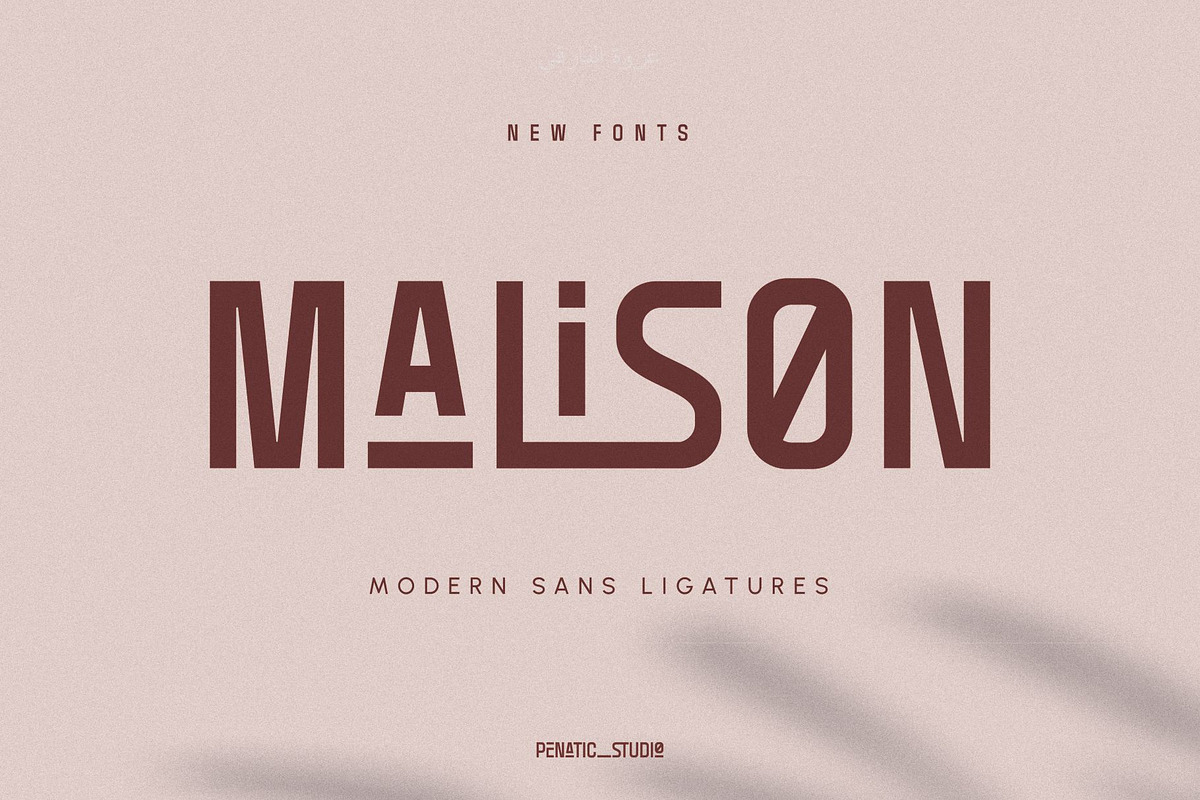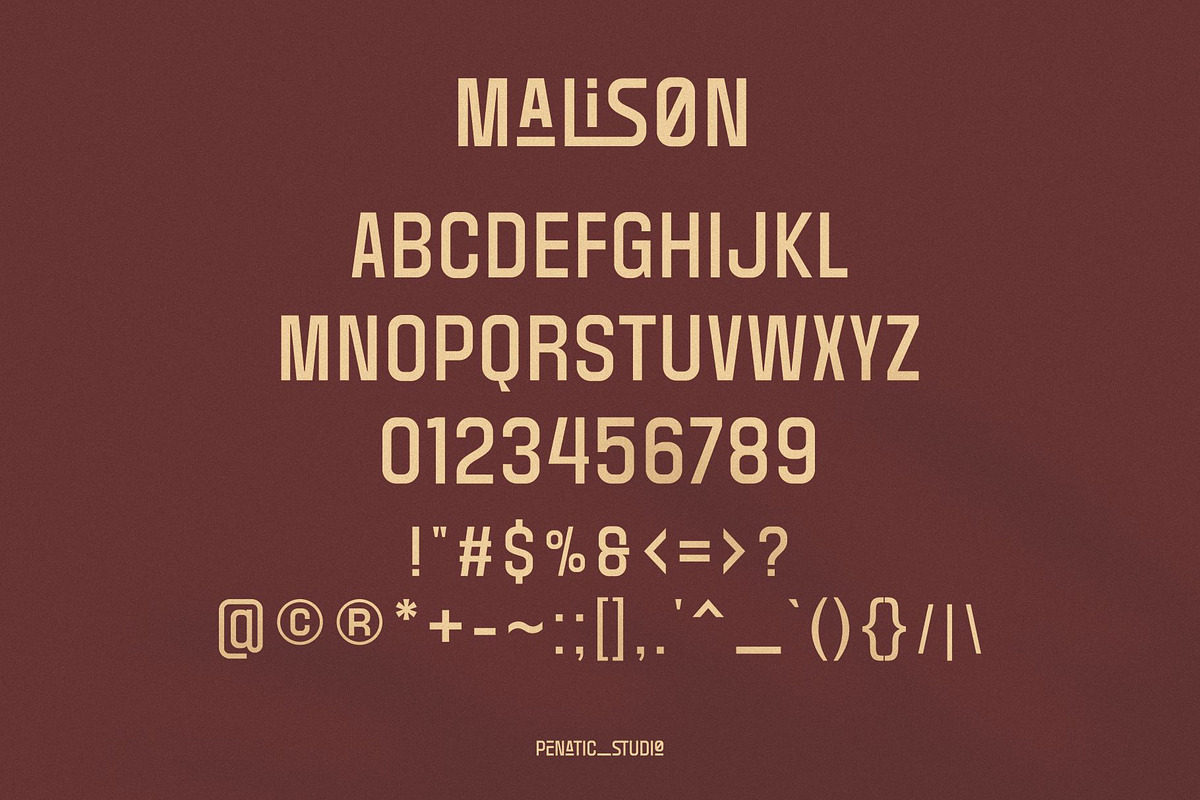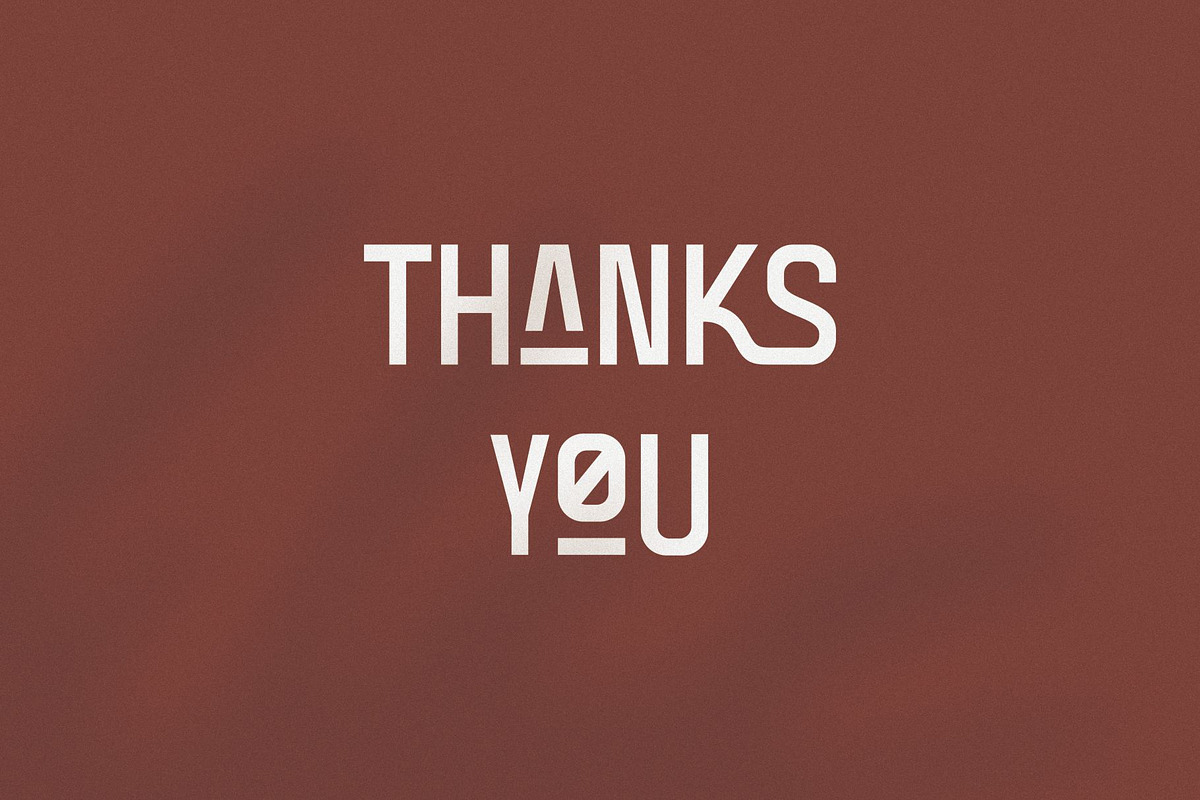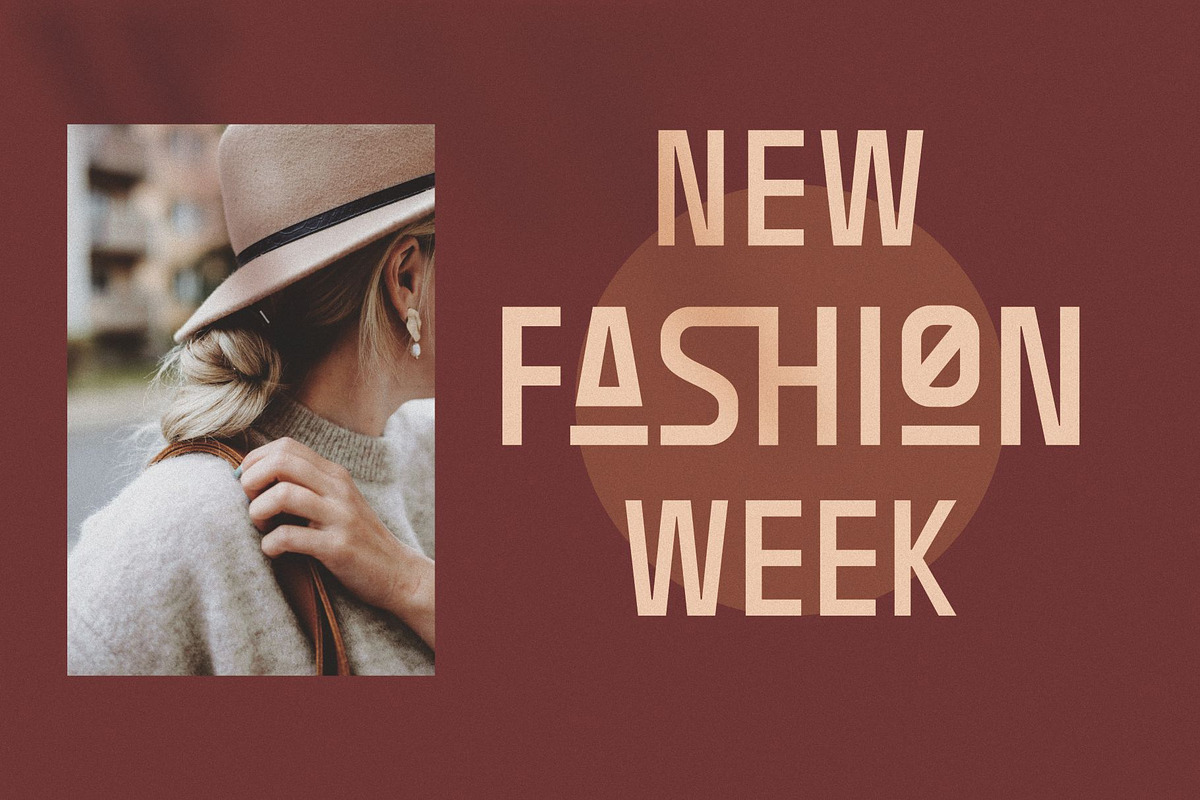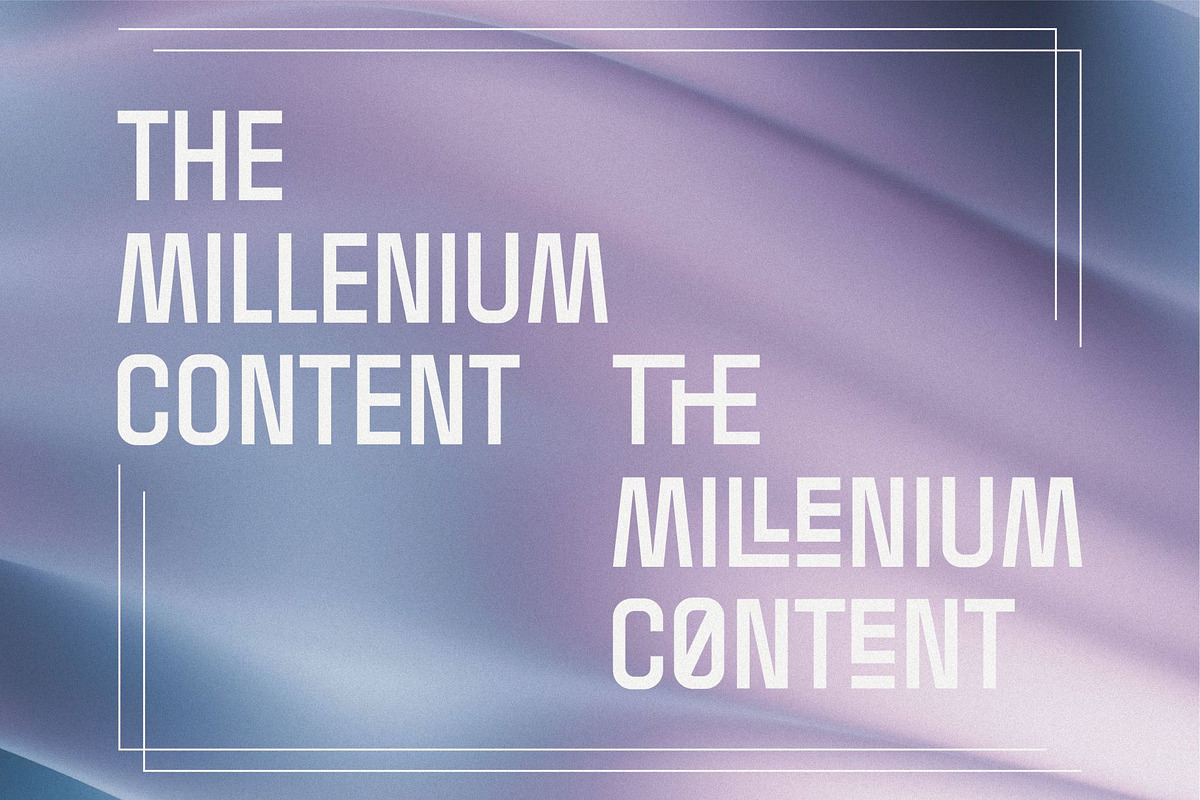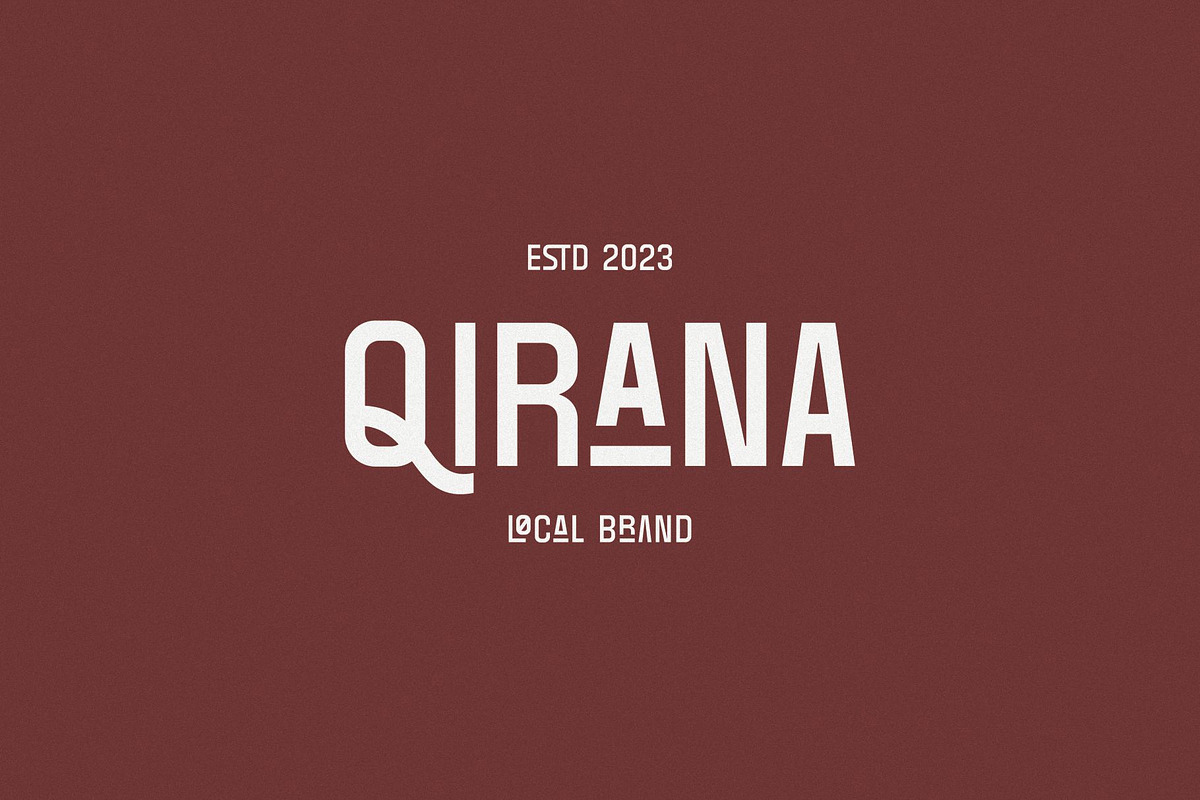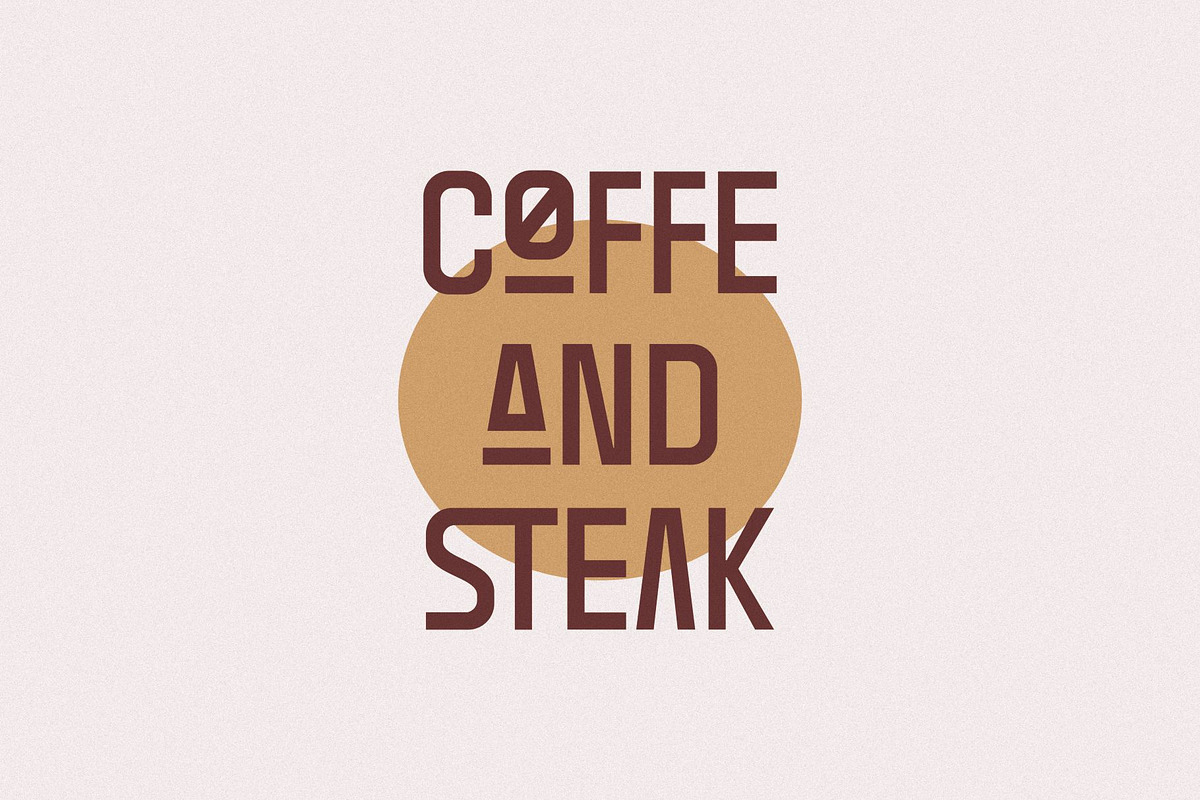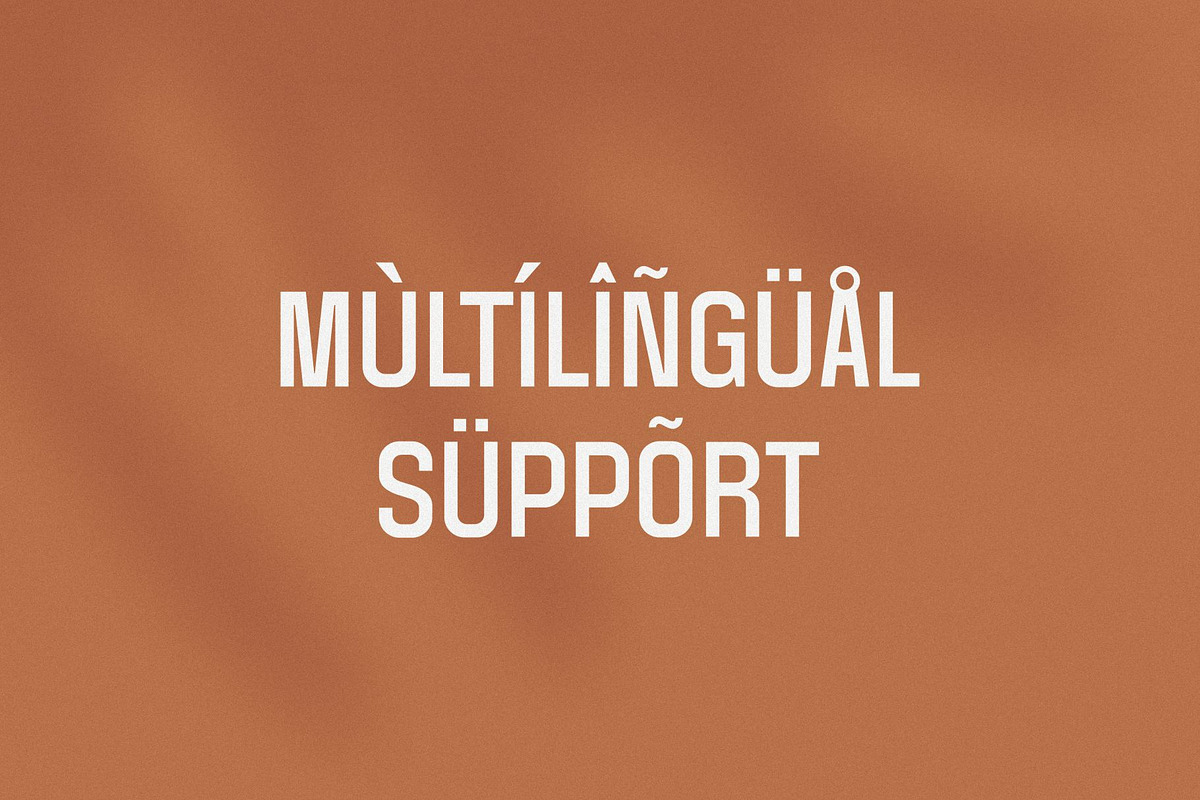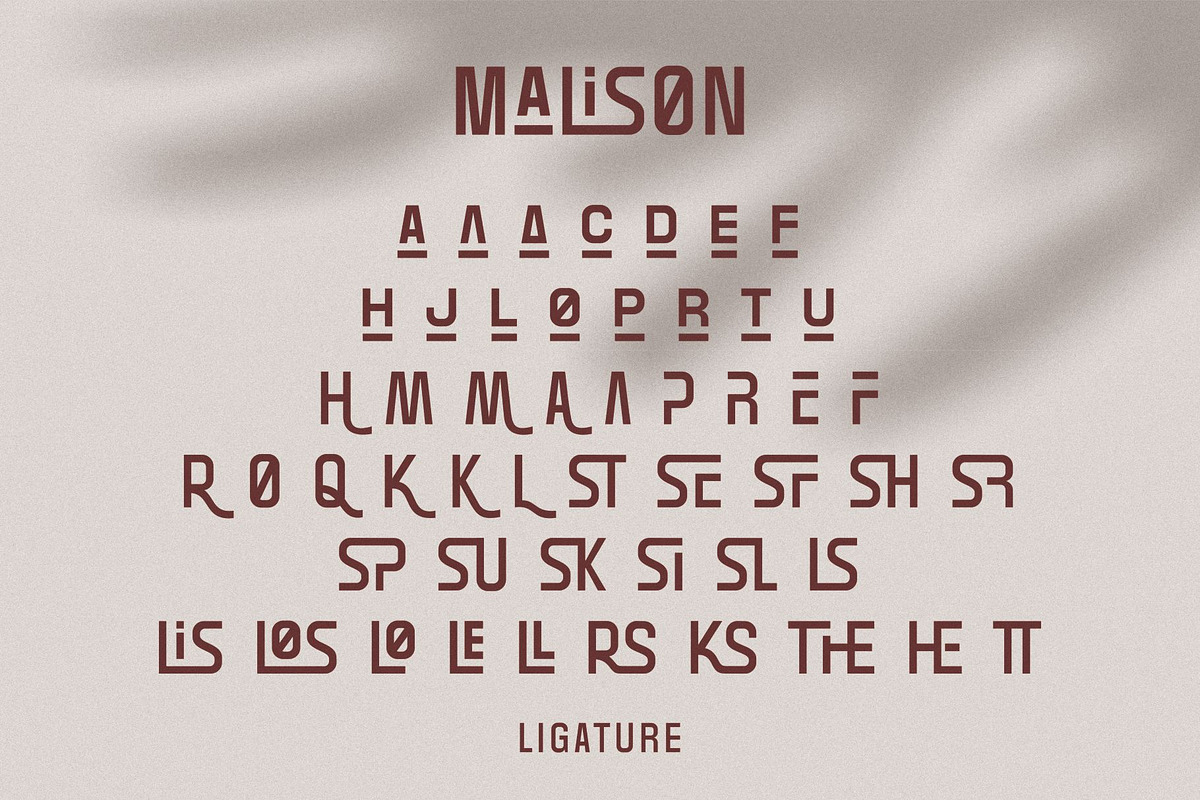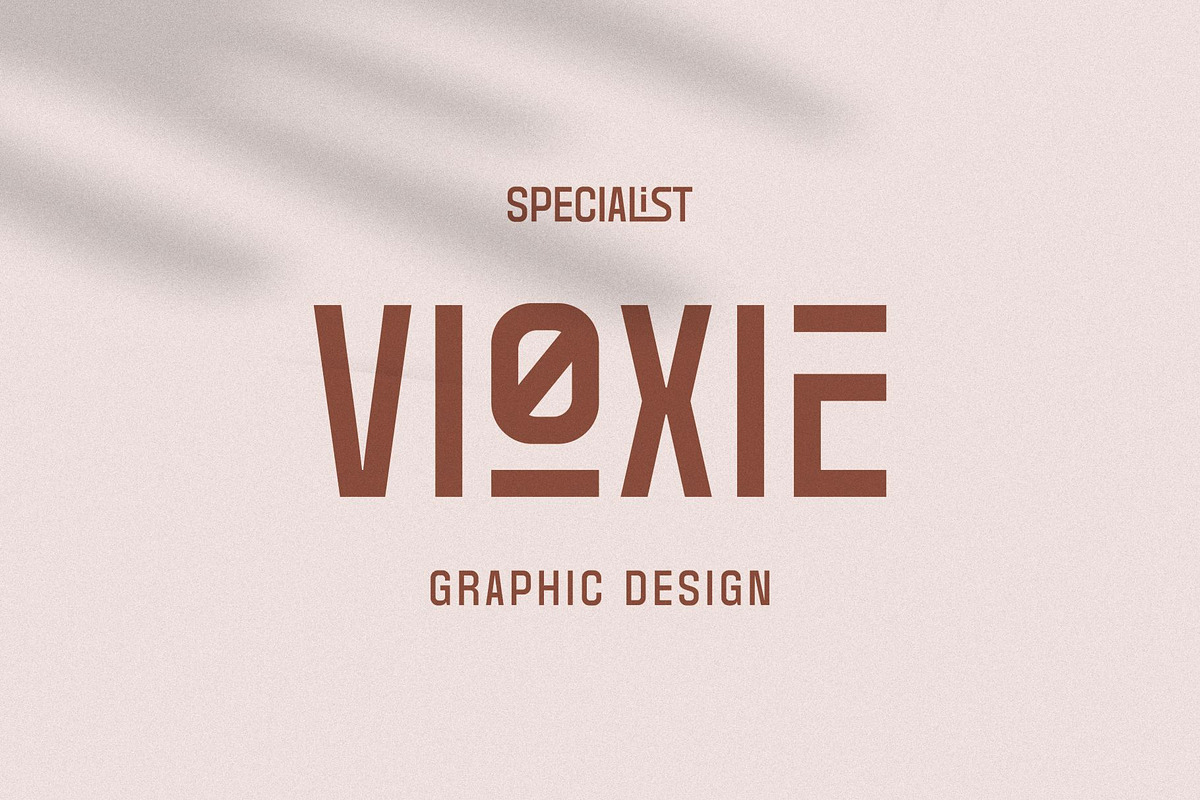
MALISON
MALISON is a new sans serif font that adopts many alternative letters and ligatures, so that users can have many choices for variations of the letters. MALISON is subtly designed and looks sturdy enough to stand on its own. Perfect to use for branding projects, logos, wedding designs, social media posts, advertising, product packaging, product designs, labels, photography, watermarks, invitations, stationery and more.
~ Unique Fonts Ligatures and Alternat